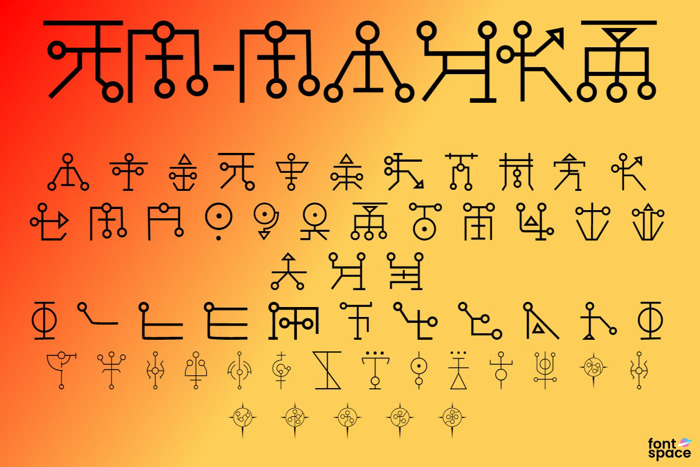
DM - Maykr Font
The Doom: Eternal Maykr script adapted from the concept art by Emerson Tung.
The additional non-alphanumeric symbols are assigned to the following characters:
# $ % & * ; @ [ \ ] % ` { | } ~
J and K looks like karate moves lol